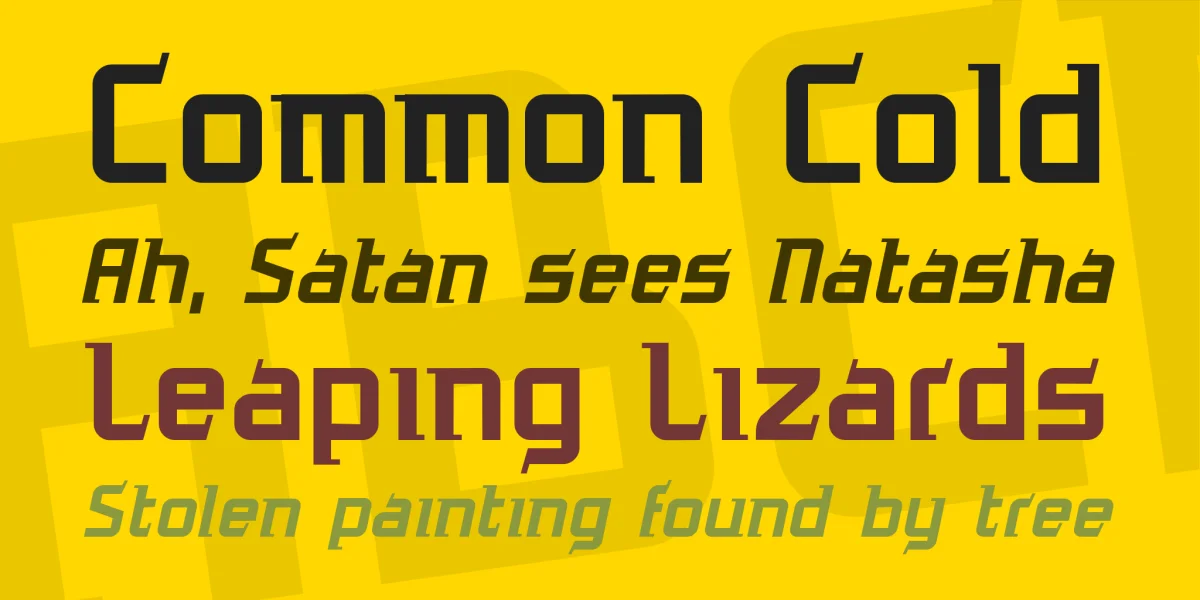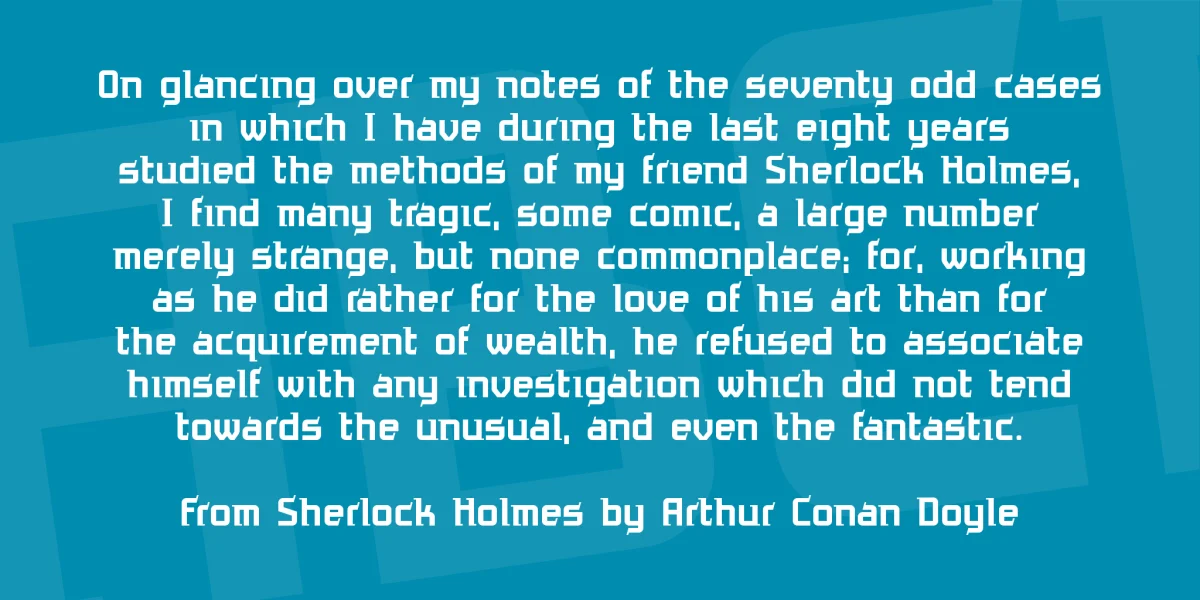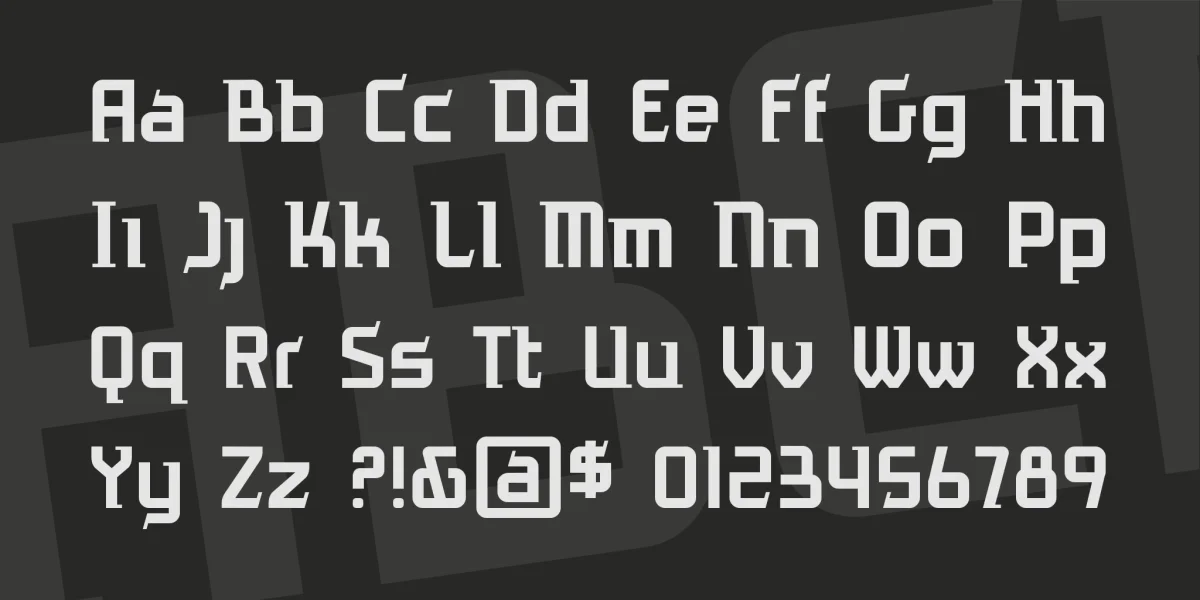
This month's freebie is a sleek sci-fi font for your title needs. It comes with regular and italic. Download this puppy and upload adventure! (ugh…that was pretty corny, sorry…)